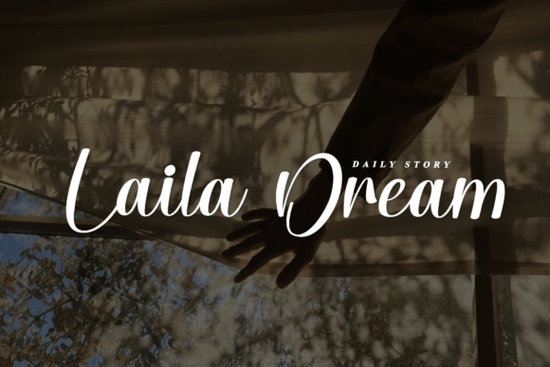
If you're looking for a handwritten font that feels both personal and professional, Laila Dream Font might be exactly what you need. This script typeface is described as lovely and timeless – perfect for creating eye-catching logos, branding materials, and quotes. Every letter has a unique, beautiful touch that brings designs to life without feeling robotic. For designers, crafters, and small business owners, choosing the right script can make or break a project. So what makes Laila Dream worth your time?
What makes Laila Dream Font stand out among handwritten fonts?
Unlike many digital scripts that look stiff or too perfect, Laila Dream retains a natural, human feel. The subtle variations in each letter give it an organic flow – ideal for projects where you want to convey warmth and authenticity. Whether you're designing a wedding invitation, a logo for a boutique, or a social media quote graphic, this font adds a gentle elegance that's hard to overdo. It works especially well for headlines and short phrases, where its charm can take center stage.
Another standout quality is its versatility. While some scripts are tied to a specific mood (like ultra-formal or playful), Laila Dream sits comfortably in the middle. It's readable enough for packaging labels yet stylish enough for branding. If you've tried other script fonts and found them too decorative or too plain, this one strikes a nice balance. For a more formal script option, you could look at the Darling Signature style, which has a different rhythm entirely.
How can designers and small businesses use Laila Dream Font in real projects?
The real value of a font like Laila Dream comes from its application. Here are a few practical ways to use it:
- Logos and brand marks – Its handwritten nature makes it feel approachable and trustworthy. Pair it with a clean sans serif for a modern logo.
- Product packaging – Think labels for handmade soaps, candles, or small-batch foods. The font adds a personal, artisanal touch.
- Social media graphics – Use it for quote posts, announcement cards, or highlight covers. It stands out in feeds full of generic fonts.
- Print-on-demand designs – T-shirts, mugs, and posters featuring this script sell well because they look handcrafted. For a more vibrant approach, the No Naps Required Party Font offers a different, energetic vibe.
- Wedding and event stationery – From save-the-dates to thank-you cards, Laila Dream fits romantic themes without being overly ornate.
When using it, keep spacing in mind. The natural flow of the font looks best when letters aren't crowded. Give each character room to breathe – this also improves readability. For longer text, consider using it sparingly as a heading or accent, not for body copy.
Which other script fonts pair well with Laila Dream?
One font alone can't cover every project. Having a small collection of complementary scripts lets you mix and match. Laila Dream's timeless style works nicely with other handwriting-inspired fonts that have distinct personalities. For example:
- The Threesome Font has a slightly bouncier, more casual feel – good for children's products or informal branding.
- Sweearly Font brings a cleaner, almost calligraphic finish, which can create an elegant contrast when paired with Laila Dream's softer edges.
- If you need something purely for headlines, the script from Darling Signature offers a more refined, signature look.
Try combining Laila Dream with a simple sans serif for logos, then use one of its script siblings for subheadings or decorative elements. This gives your design a cohesive but layered feel.
- ☐ Test Laila Dream in a few sizes – small for labels, large for headlines – to check readability.
- ☐ Pair it with a backup script from the list above to see which combination feels right.